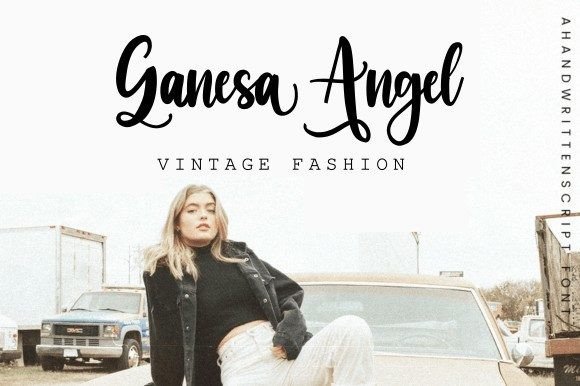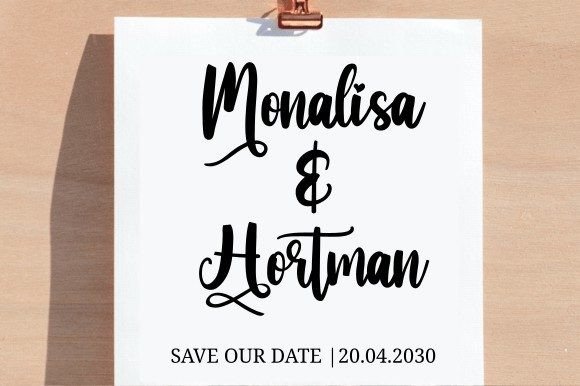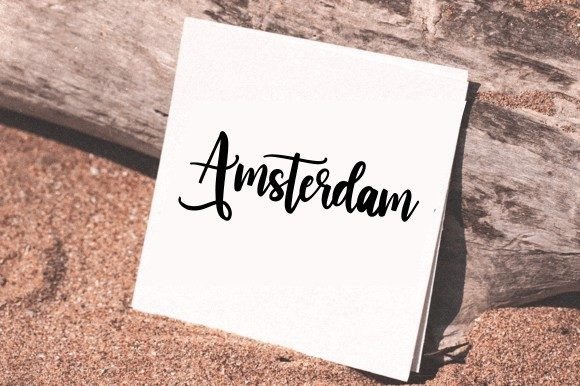
Auntum Font: Elevate Your Designs with a Professional and Flowing Handwritten Style
Are you tired of using the same old fonts for your designs? Look no further than Auntum Font, a beautiful and professional handwritten font that’s perfect for creating stunning visuals. With its flowing lines and elegant style, Auntum is an incredibly versatile font that can be used for a wide range of design projects.
What is Auntum Font?
Auntum Font is a carefully crafted handwritten font that’s designed to add a touch of sophistication and elegance to your designs. Its professional and flowing style makes it perfect for use on quotes, branding, fashion, headers, covers, t-shirt designs, greeting cards, and more.
Key Features of Auntum Font
- Handwritten style: Auntum Font has a beautiful, handwritten style that’s perfect for adding a personal touch to your designs.
- Flowing lines: The font’s flowing lines create a sense of movement and elegance, making it perfect for use on designs that require a touch of sophistication.
- Versatile: Auntum Font is incredibly versatile and can be used for a wide range of design projects, from quotes and branding to fashion and t-shirt designs.
- Easy to read: Despite its elegant style, Auntum Font is easy to read, making it perfect for use on designs that require a clear and concise message.
Uses for Auntum Font
Auntum Font is perfect for designers and crafters who want to add a touch of elegance and sophistication to their designs. Here are some ideas for using Auntum Font:
- Quotes: Use Auntum Font to create stunning quote designs that are perfect for social media, blogs, or marketing materials.
- Branding: Add a touch of elegance to your brand with Auntum Font, perfect for use on logos, business cards, or letterheads.
- Fashion: Use Auntum Font to create beautiful fashion designs, from clothing labels to fashion blog headers.
- T-shirt designs: Create stunning t-shirt designs with Auntum Font, perfect for use on casual wear or promotional products.
- Greeting cards: Add a touch of elegance to your greeting cards with Auntum Font, perfect for use on birthdays, weddings, or holidays.
Tips for Using Auntum Font
Here are some tips for getting the most out of Auntum Font:
- Use it sparingly: Auntum Font is a statement font, so use it sparingly to add emphasis to your designs.
- Experiment with colors: Auntum Font looks great in a range of colors, from bold and bright to soft and pastel.
- Pair it with other fonts: Auntum Font pairs well with other fonts, so experiment with different combinations to create unique and interesting designs.
Auntum Font is a beautiful and professional handwritten font that’s perfect for designers and crafters who want to add a touch of elegance and sophistication to their designs. With its flowing lines and elegant style, Auntum is an incredibly versatile font that can be used for a wide range of design projects. Whether you’re creating quotes, branding, fashion designs, or greeting cards, Auntum Font is the perfect choice.
So why not fall in love with Auntum Font and use it to create spectacular designs that will leave a lasting impression on your audience?